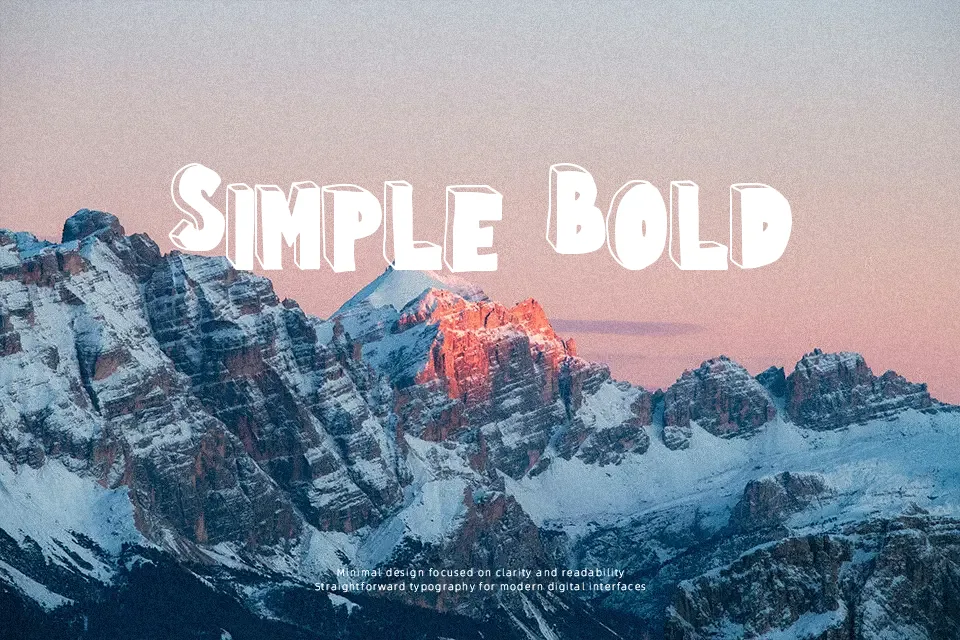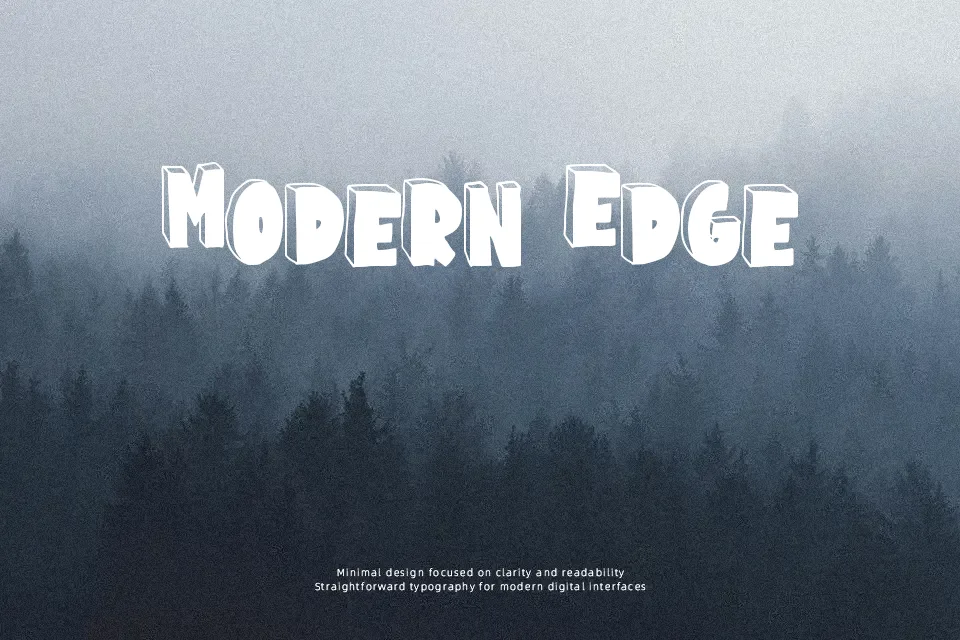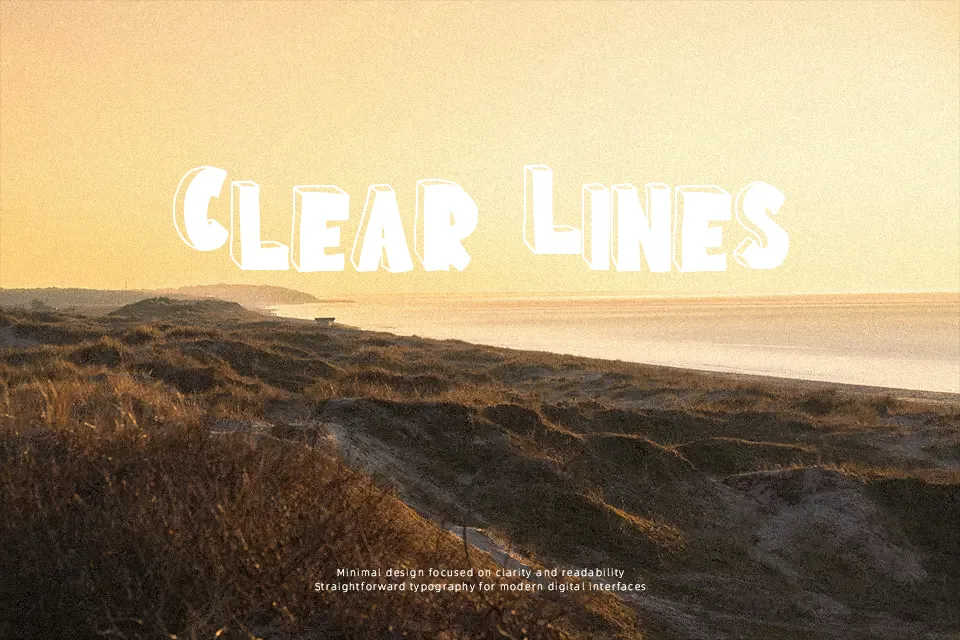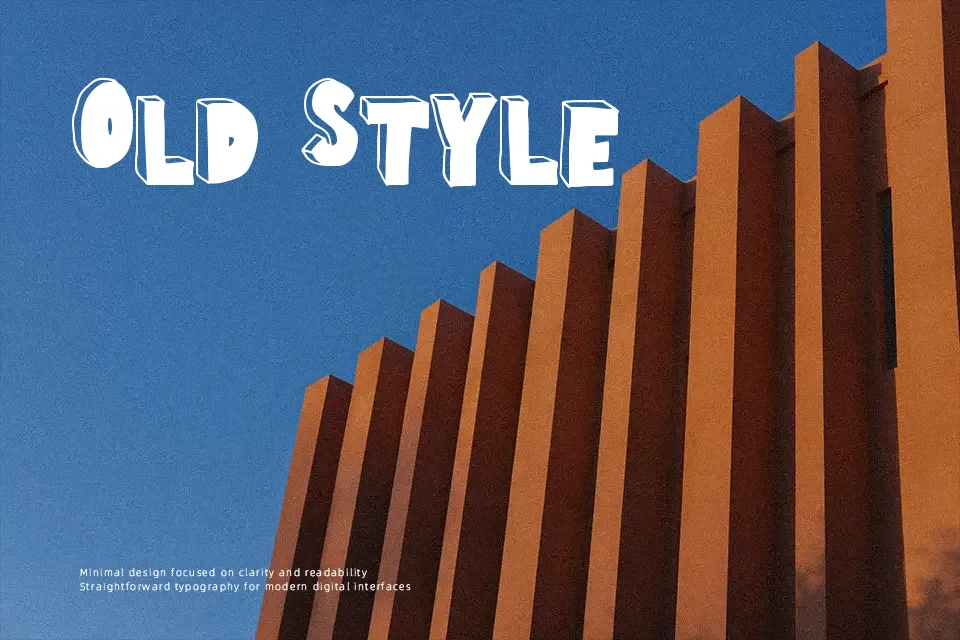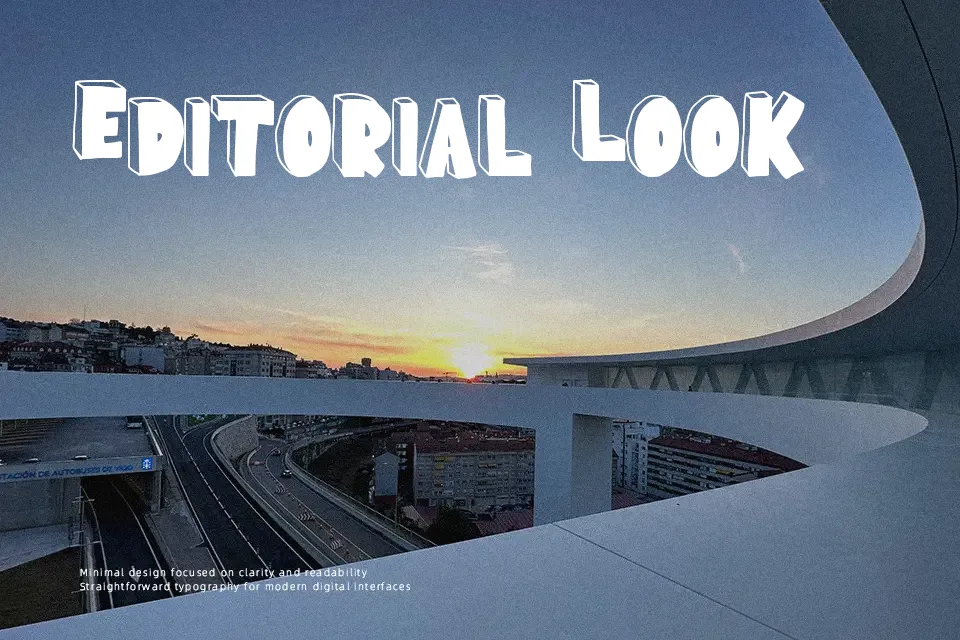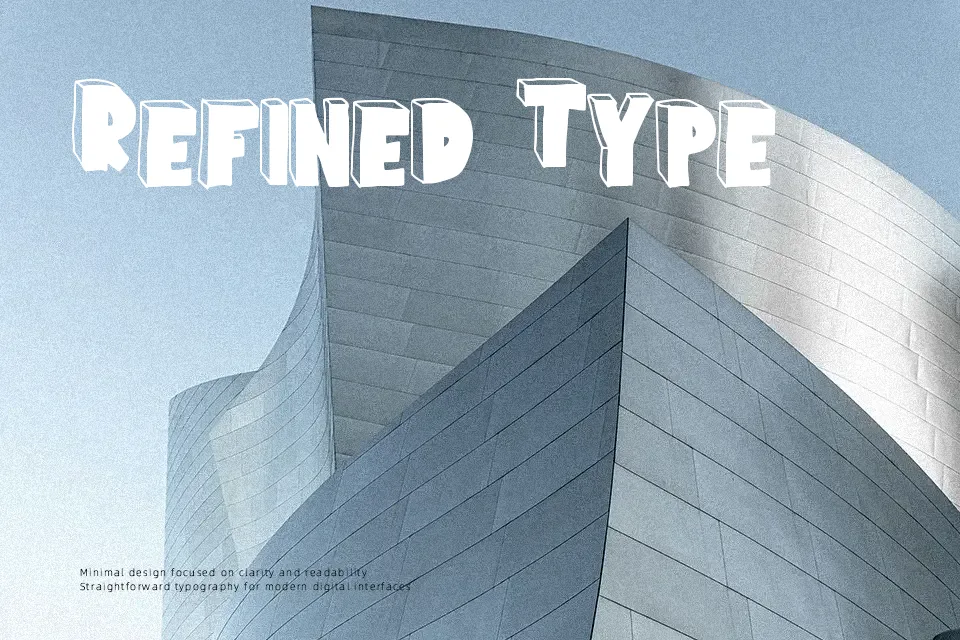
School Mania Font
School Mania Font features hefty, blocky silhouettes shaped with lively hand-crafted contours and informal geometric proportions. The thick, uniform stroke style establishes strong visual presence, while compact letter spacing keeps titles cohesive across youth event posters, animated title sequences, and board game packaging. Characters showcase a dynamic, staggered baseline rhythm that reinforces a cheerful tone across short lines. Readability remains high in large display applications, but the small interior counters and dense character weight make the typeface unsuitable for continuous body paragraphs or fine print captions. The heavy construction ensures immediate visibility from across a room.
Best For: children’s book titles, elementary school event banners, toy packaging, animated cartoon headers
Not Ideal For: long body text paragraphs, formal corporate reports, mobile app navigation labels, dense editorial spreads
Perfect for advertising, headline, and kids, with a bold and cartoon style.